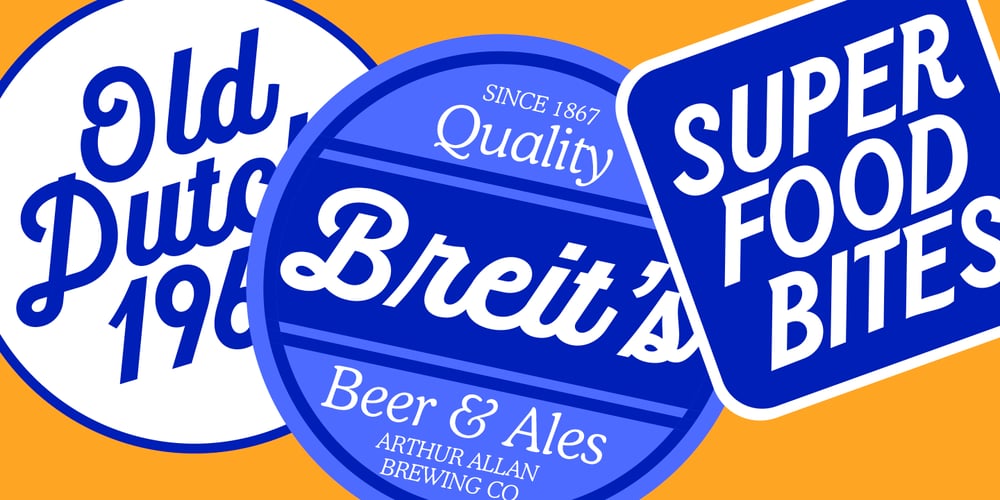
RT Austin Plain Font Family was designed by Ritmo Estudio and published by Estudio Calderon. RT Austin Plain contains 2 styles and family package options. Austin Plain is derived from the union between Melts Script and Deftone Stylus, the result is a friendly typeface that mixes old American styles with modern design concepts.